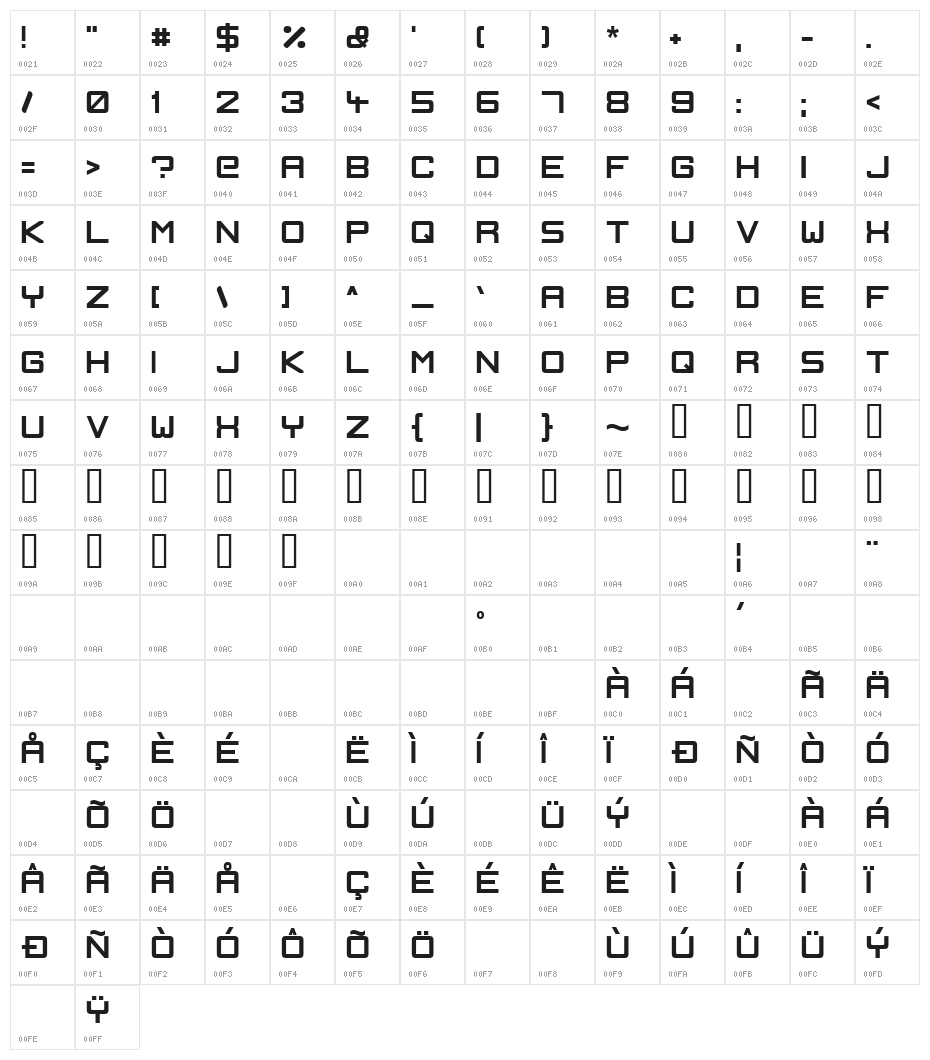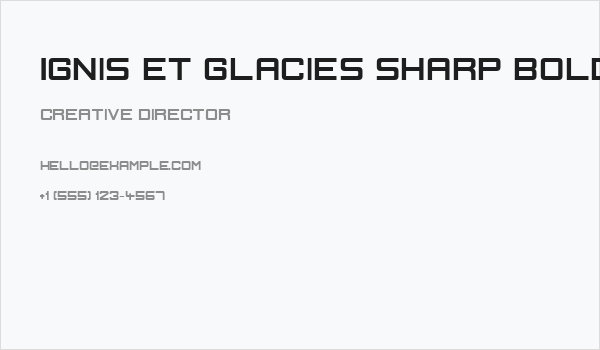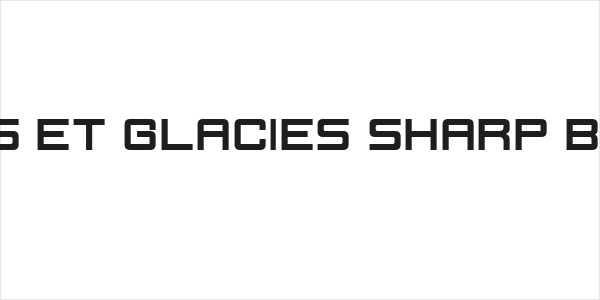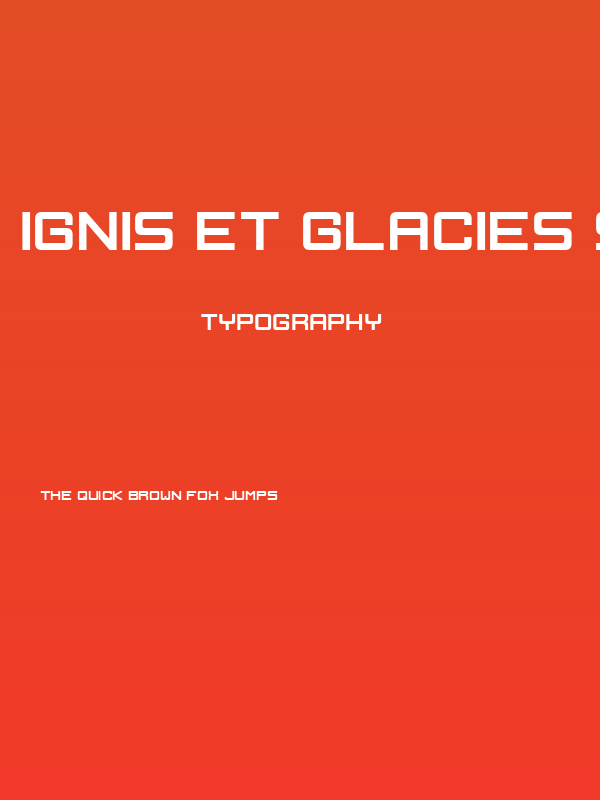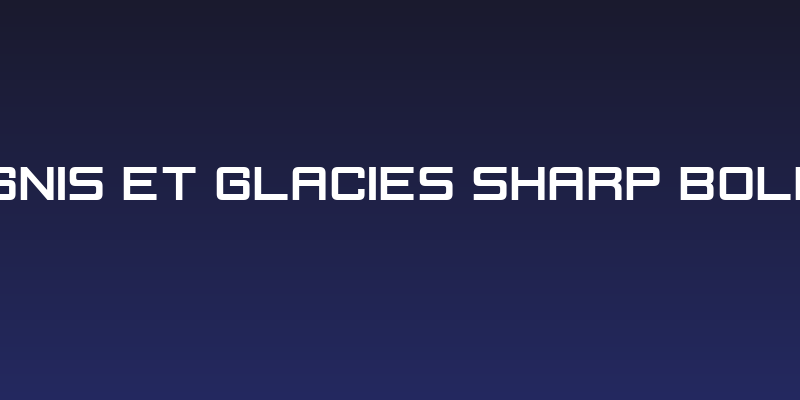
Ignis et Glacies Sharp Bold Font
Ignis et Glacies Sharp Bold Description
This font features a bold and geometric design with sharp, angular edges that give it a futuristic and modern appearance. The characters are uniformly thick, contributing to a strong visual impact. The uppercase and lowercase letters maintain a consistent style, with a squared-off look that enhances readability while adding a unique flair. The numbers and special characters are designed to match the overall aesthetic, ensuring a cohesive look across all text elements. This font's boldness and distinct style make it ideal for projects that require a striking and memorable typeface.
| Proposed Projects | Ideal for branding, logos, headlines, and any design project that requires a strong, modern typeface. |